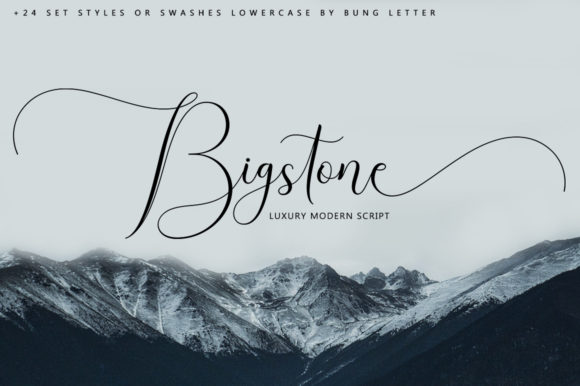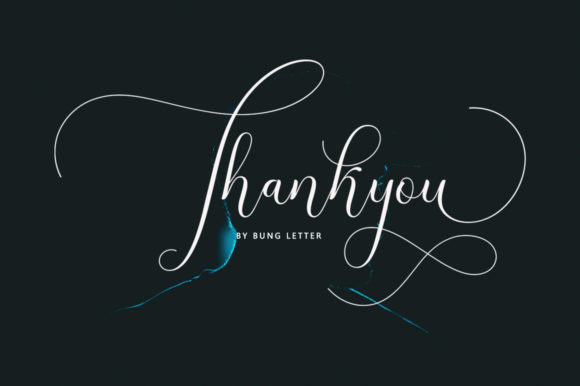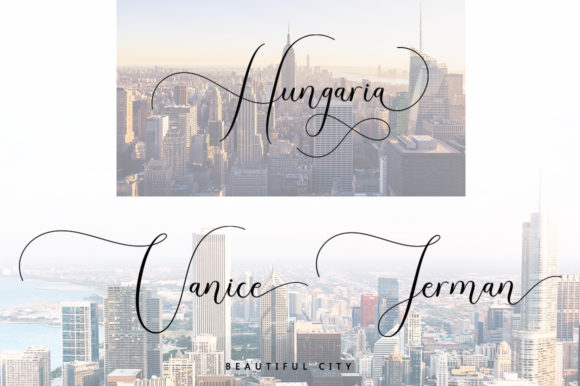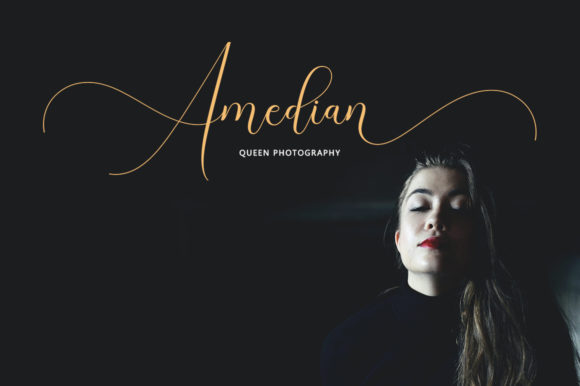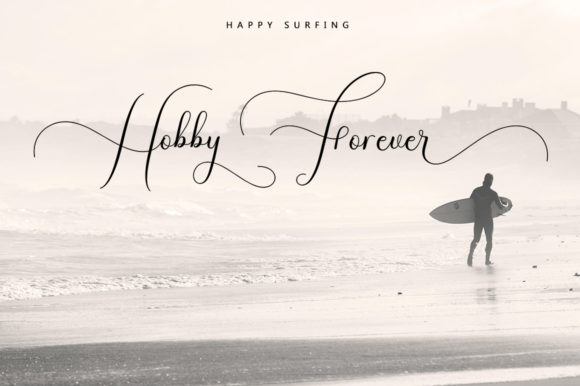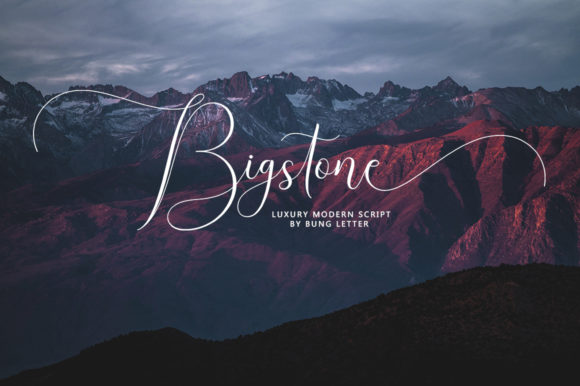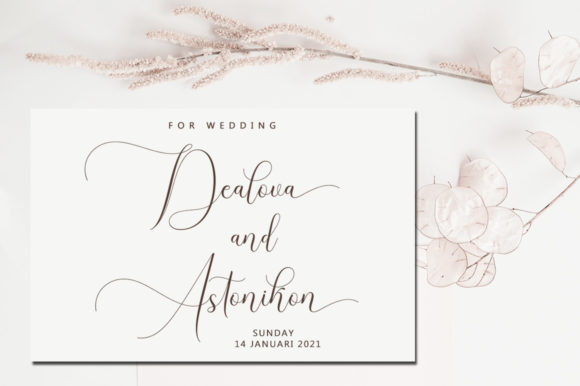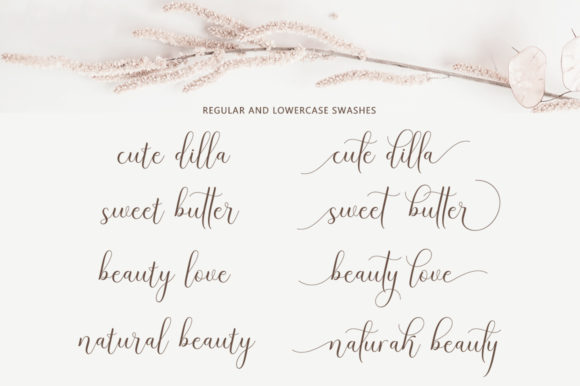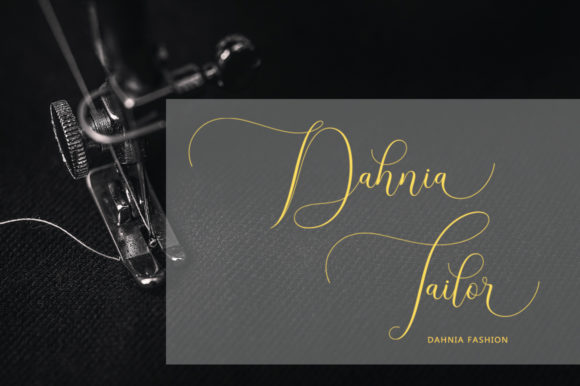
Bigstone Font
About Bigstone Font
Bigstone is a ravishing script font that brings elegance and romance to your designs. With its wide spectrum of applications, from greeting cards to headlines, Bigstone is a versatile font that can add a touch of sophistication and beauty to your projects.
The standout feature of Bigstone is its adaptability. Whether you’re designing wedding invitations, greeting cards, logos, or headlines, Bigstone can effortlessly add a romantic and stylish feel to your designs. Its elegant and flowing characters are carefully crafted to create a harmonious and visually pleasing composition.
With the PUA (Private Use Area) encoding, accessing the beautiful glyphs and swashes of Bigstone is made easy. This means you have the freedom to customize and enhance your designs with the additional decorative elements that Bigstone offers. The swashes and glyphs add an extra level of elegance and uniqueness to your typography, allowing you to create truly captivating and personalized designs.
The smooth and flowing lines of Bigstone contribute to its overall romantic and graceful aesthetic. The letterforms have a sense of movement and fluidity, giving your text a captivating and dynamic appearance. The carefully designed curves and details make each letter visually appealing and pleasant to the eye.
Bigstone is designed to be legible and readable, even in larger sizes. This makes it suitable for a variety of applications, including headlines and titles where you want to make a bold statement. The font maintains its elegance and readability, ensuring that your message is conveyed effectively.
Whether you’re creating wedding invitations, branding materials, or any design that requires a touch of romance and sophistication, Bigstone is a font that can elevate your projects to the next level. Its adaptability, beautiful glyphs, and smooth lines make it a reliable choice for adding a romantic feel to your designs.
In summary, Bigstone is a ravishing script font that adds elegance and romance to your designs. With its wide range of applications and PUA encoding, you can easily access the beautiful glyphs and swashes to customize your designs. Embrace the romantic charm of Bigstone and create stunning typographic compositions that evoke sophistication and beauty.